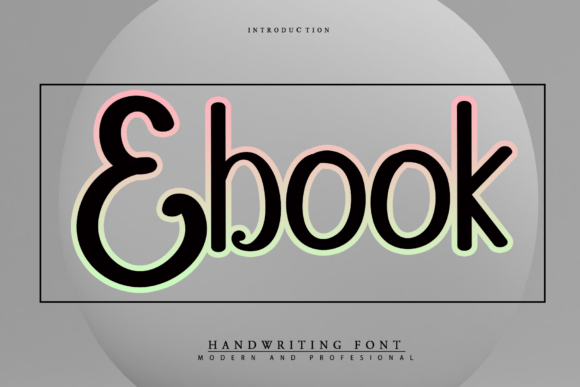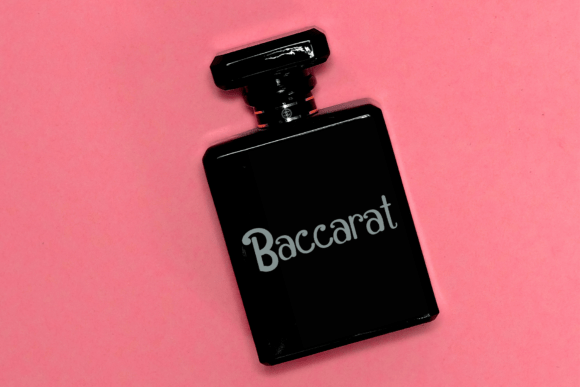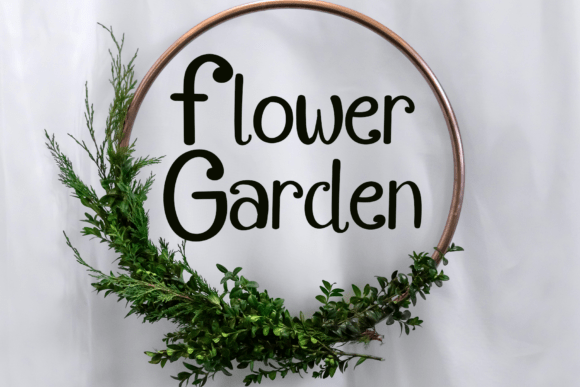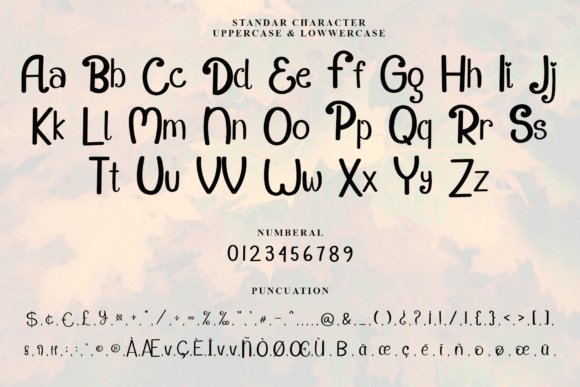
Ebook Font: Modern Script for Social Media Design & Branding Kits
About the Ebook Font
Get ready to be inspired by Ebook Font, a fresh and dynamic typeface for modern creators. Ebook is a cool and modern font. Whether you’re using it for crafts, digital design, presentations, or making greeting cards, this font has the potential to become your favorite go-to font, no matter the occasion.
Ebook’s modern, cool aesthetic makes it ideal for headlines, short-form text in branding materials, and eye-catching elements in posters or packaging design. Its unique character shines in applications needing a strong visual impact, but its less-than-optimal x-height makes it unsuitable for body text or long-form content, including UI elements.
For a balanced pairing, consider using a clean sans-serif like Lato or Open Sans for body copy to complement Ebook’s boldness. Alternatively, a subtle serif like Merriweather can provide a touch of classic elegance while maintaining visual contrast.
Ebook projects a confident, modern personality. Its strength lies in making a statement rather than conveying subtle nuances. Therefore, it’s a perfect fit for brands focused on innovation, technology, or contemporary design.